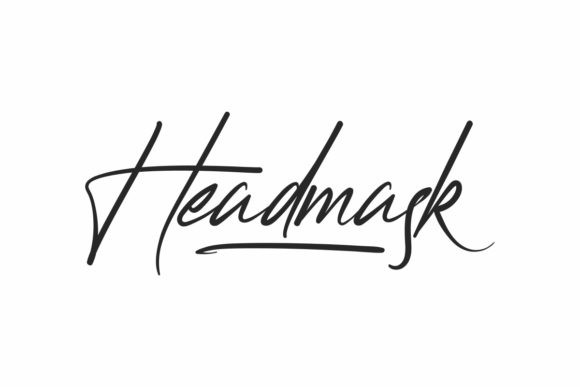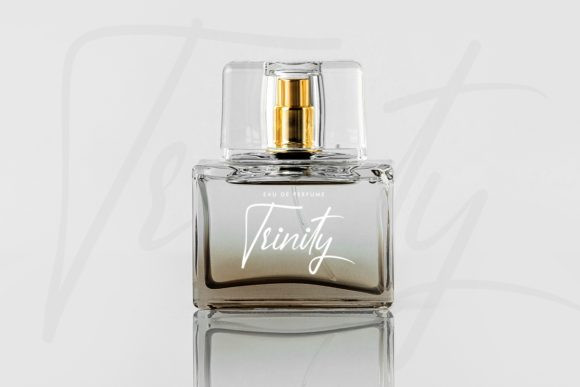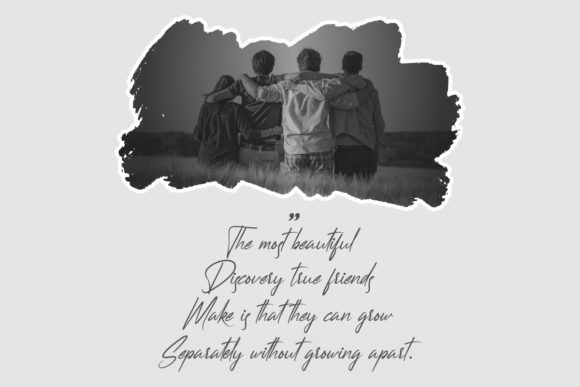
Headmask Font
Headmask FontHeadmask is a fashionable script font with a contemporary atmosphere and impeccable form. Not too thin and not too thick, balanced and varied, this font was designed to enhance the beauty of your projects.